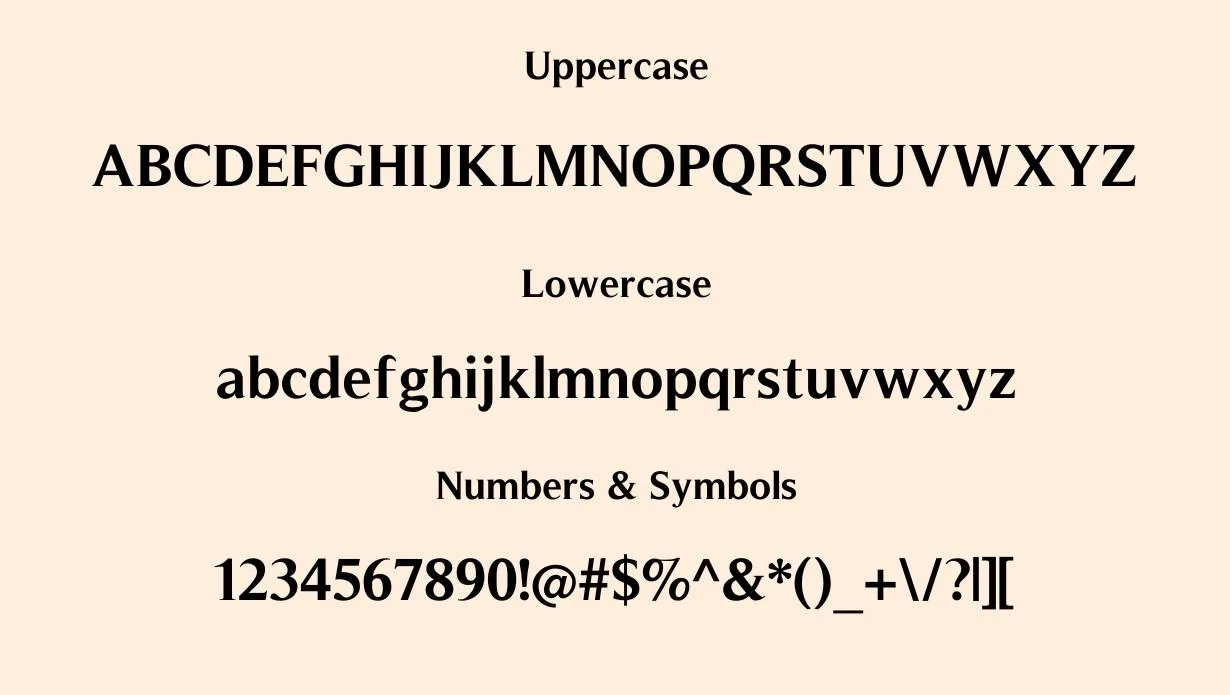
Timeless Font lives up to its name with its classic and enduring design. It’s a versatile choice for projects that require a timeless and elegant touch.
From formal documents and book covers to vintage-themed posters, Timeless Font brings a sense of history and sophistication to your designs.
Timeless Font Family